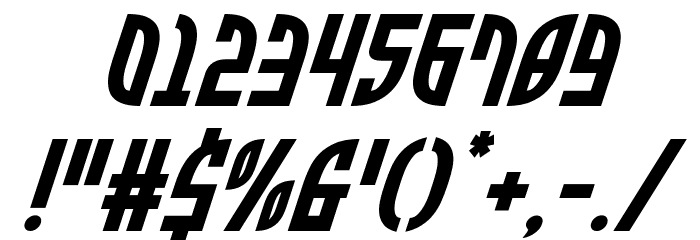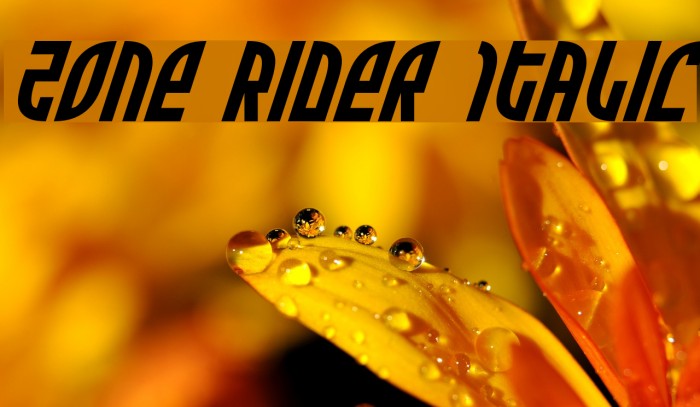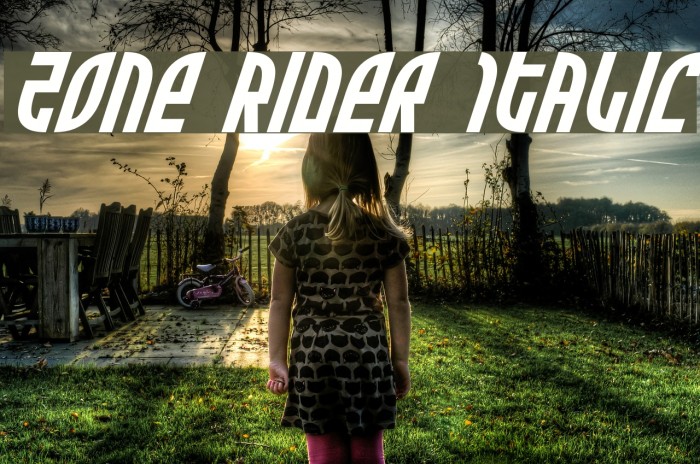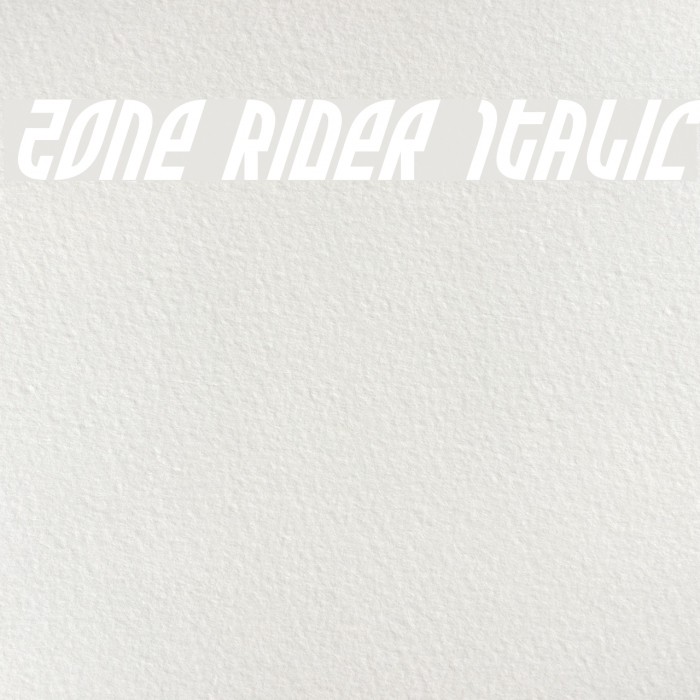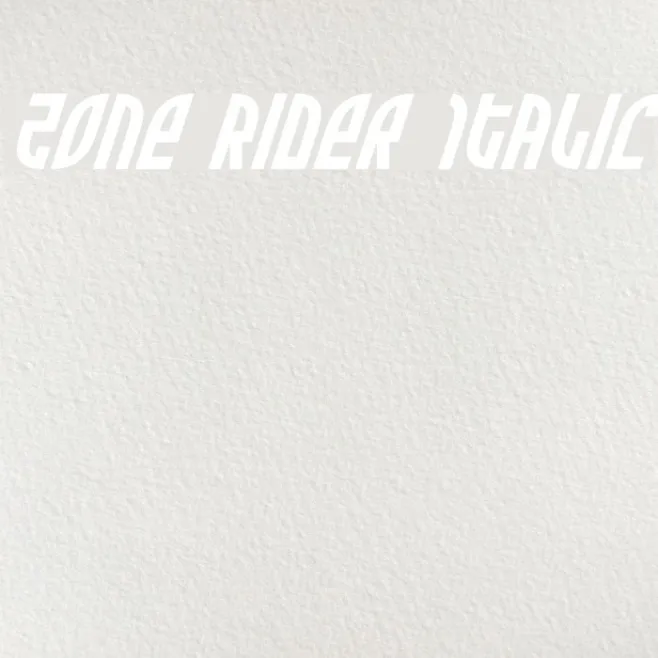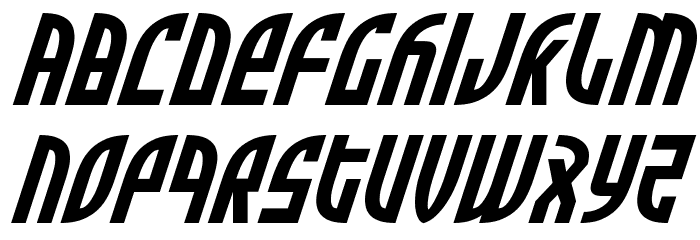
Zone Rider Italic Font
This font features a dynamic and futuristic design with a strong italic slant, giving it a sense of motion and speed. The characters are bold and angular, with sharp edges and a consistent stroke width that emphasizes its modern aesthetic. The uppercase and lowercase letters maintain a uniform style, while the numerals and special characters complement the overall look. Its distinctive appearance makes it suitable for projects that require a bold and energetic typeface.
A bold, italic, and futuristic font with sharp, angular characters.
• Proposed Projects: Ideal for sports branding, automotive designs, video game titles, and sci-fi themed projects.
• Category: Decorative/Display
• Contrast: Low
• Overall Style: Modern
• Use Case: Headlines, Logos